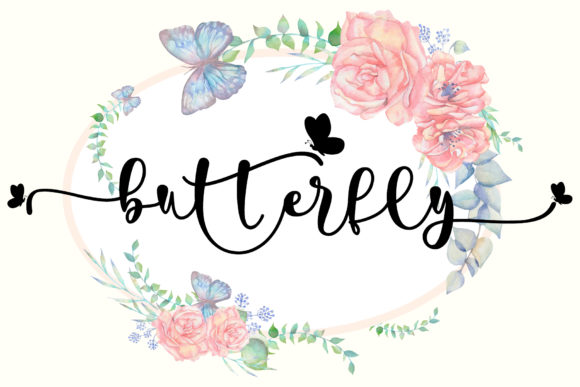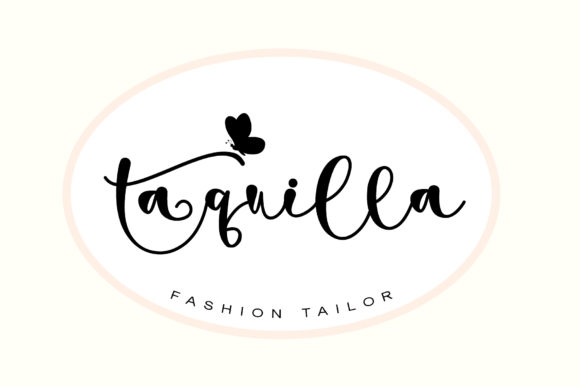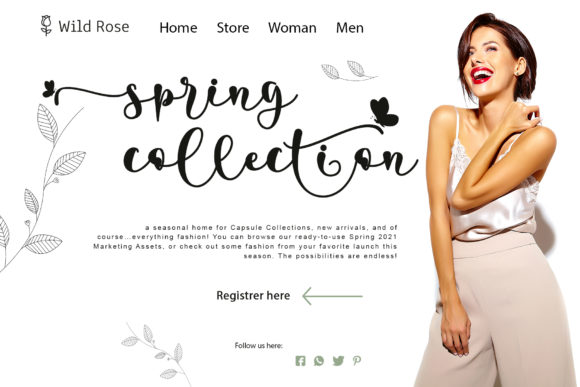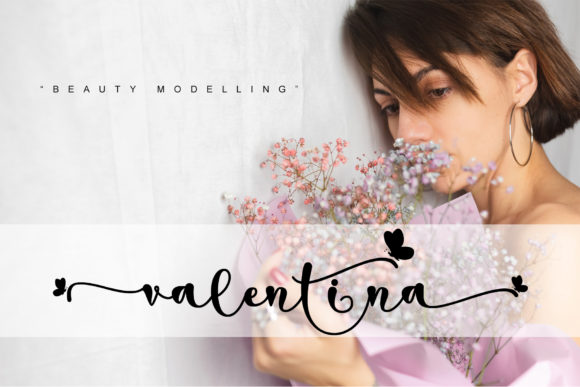
Pretty Butterfly Font
About the Pretty Butterfly Font
From logos to headlines, the Pretty Butterfly Font is the perfect choice for making a lasting impression. Pretty Butterfly is a sweet and beautiful handwritten font. It has a classy, elegant, and modern look which can be used for logos, branding, invitations, stationery, wedding designs, social media posts, and much more.
Its elegant, slightly informal style makes it ideal for headlines, short-form text in branding materials, and social media graphics. It works particularly well for projects emphasizing femininity, sophistication, or a handcrafted aesthetic—think wedding invitations, boutique branding, or product packaging for beauty or fashion items. However, avoid using Pretty Butterfly for body text or lengthy paragraphs; its delicate nature makes it less legible at smaller sizes.
For optimal visual balance, pair Pretty Butterfly with a clean sans-serif font like Montserrat or Lato for supporting text. A classic serif like Garamond or Playfair Display could also provide a sophisticated contrast, enhancing the overall elegance. Avoid pairing it with overly geometric or heavily stylized fonts, which might clash with its organic feel.
Pretty Butterfly’s core personality is elegant yet approachable; it conveys a sense of refined playfulness, making it suitable for brands that want to project a sophisticated yet friendly image.
Pretty Butterfly Font Usage Examples
Pretty Butterfly Font Example